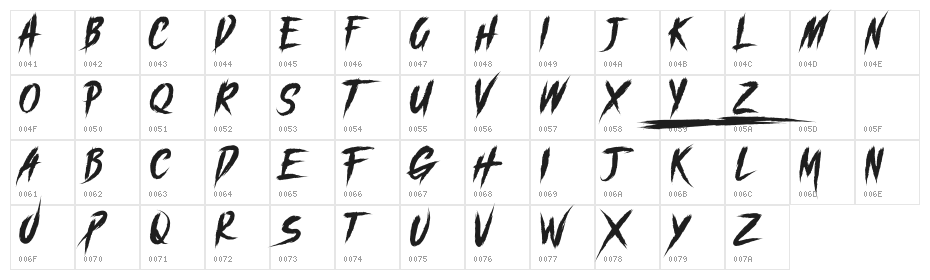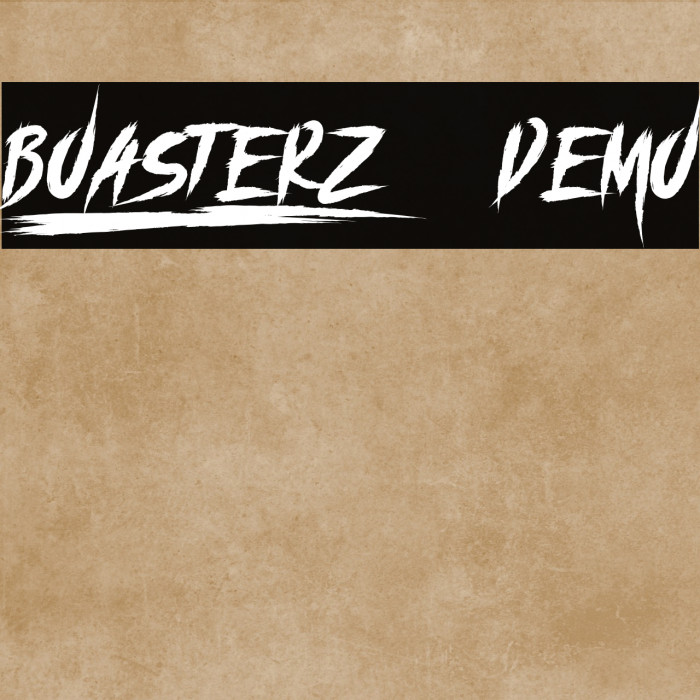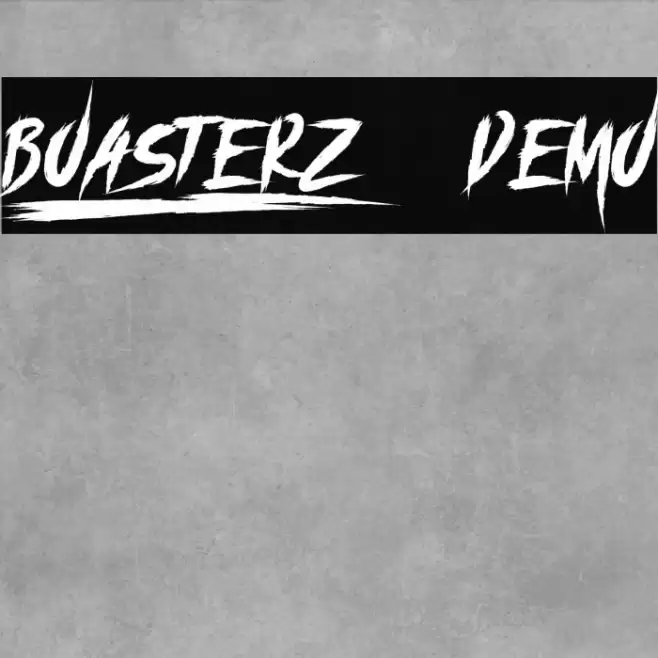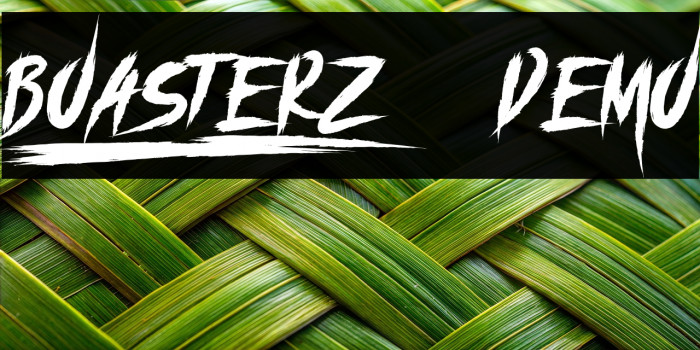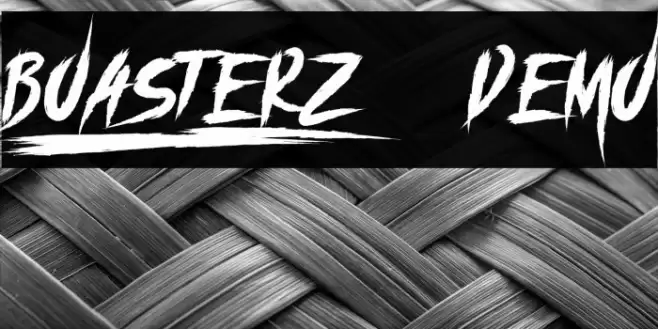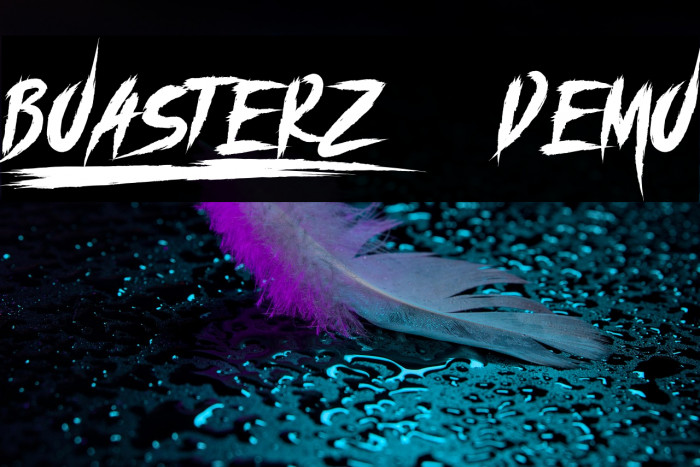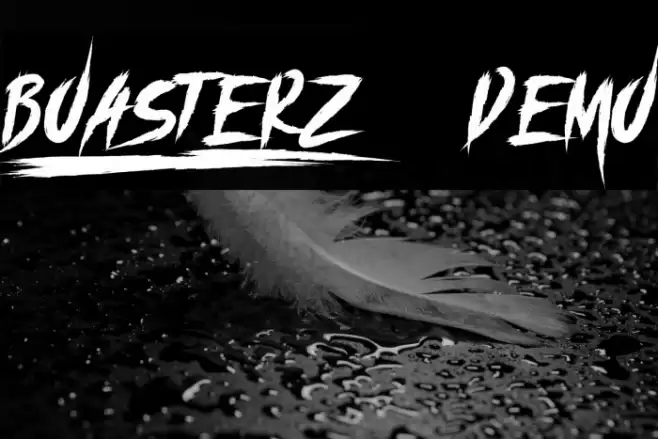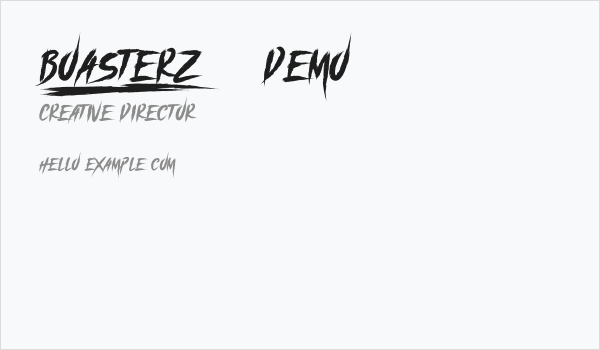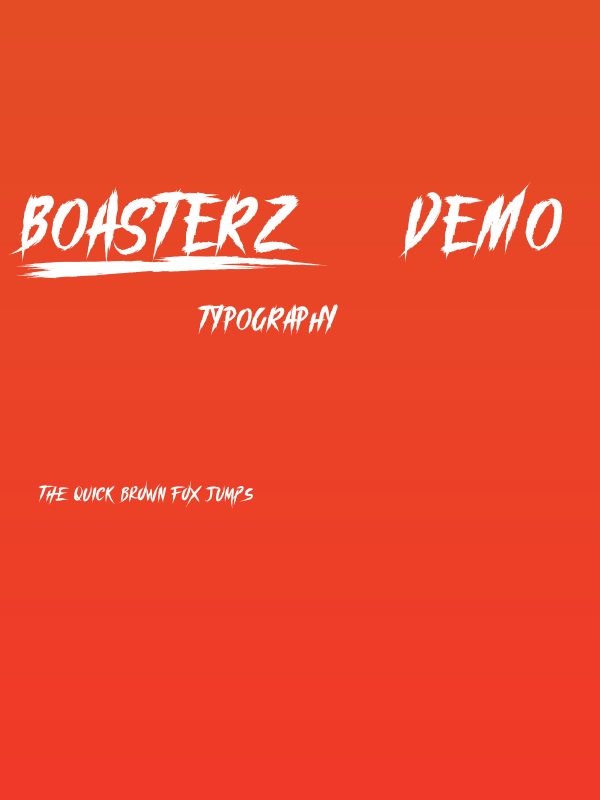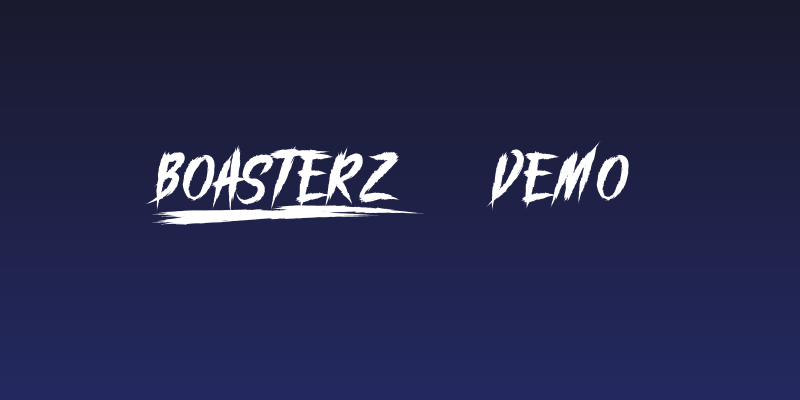
boasterz] - Demo Font
boasterz] - Demo Description
This font features a bold and aggressive style with sharp, jagged edges that give it a dynamic and energetic appearance. The strokes are uneven and mimic the look of brush strokes, adding a raw and edgy feel. The uppercase and lowercase letters maintain a consistent style, with each character exhibiting a sense of movement and intensity. The font's design is reminiscent of graffiti or street art, making it suitable for projects that require a bold and rebellious aesthetic. The overall impression is one of power and assertiveness, making it ideal for attention-grabbing headlines or logos.
| Overall Style | Modern, Edgy |
| Proposed Projects | Ideal for music album covers, extreme sports branding, streetwear designs, and event posters. |